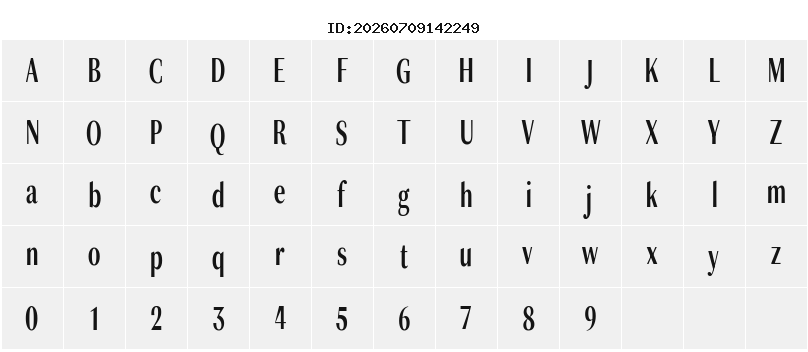
猴尊宋体 Preview
• Font Name: 猴尊宋体
• Font ID: HouZunSongTi:Version 2.001
• Full Font Name: 猴尊宋体
• Version: Version 2.001;November 13, 2023;FontCreator 14.0.0.2901 64-bit
• PostScript Name: HouZunSongTi
• Character Count: 30897
• Designer: 猴尊
• Manufacturer: Houzun
• Description: 猴尊宋体
About 猴尊宋体.ttf
猴尊宋体.ttf is a modern, elegant sans-serif font designed for ultimate readability and visual harmony. Perfect for branding, headlines, web design, and print materials.